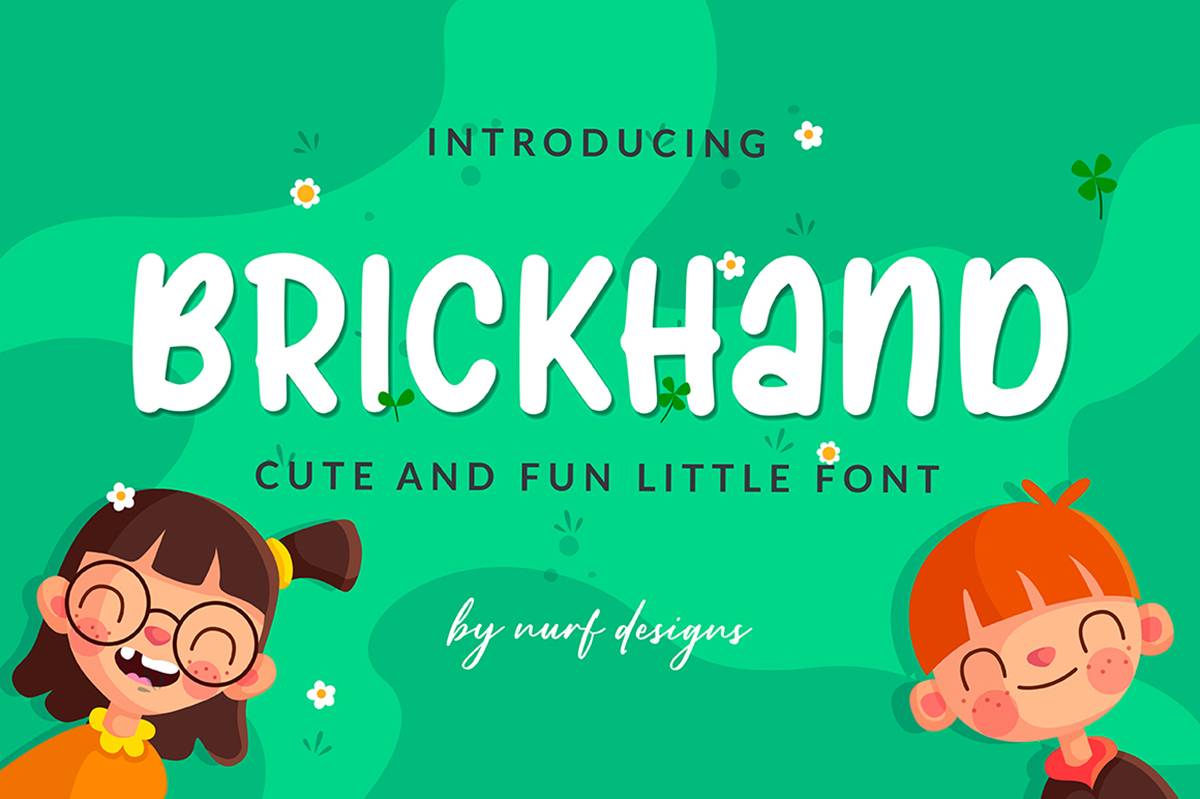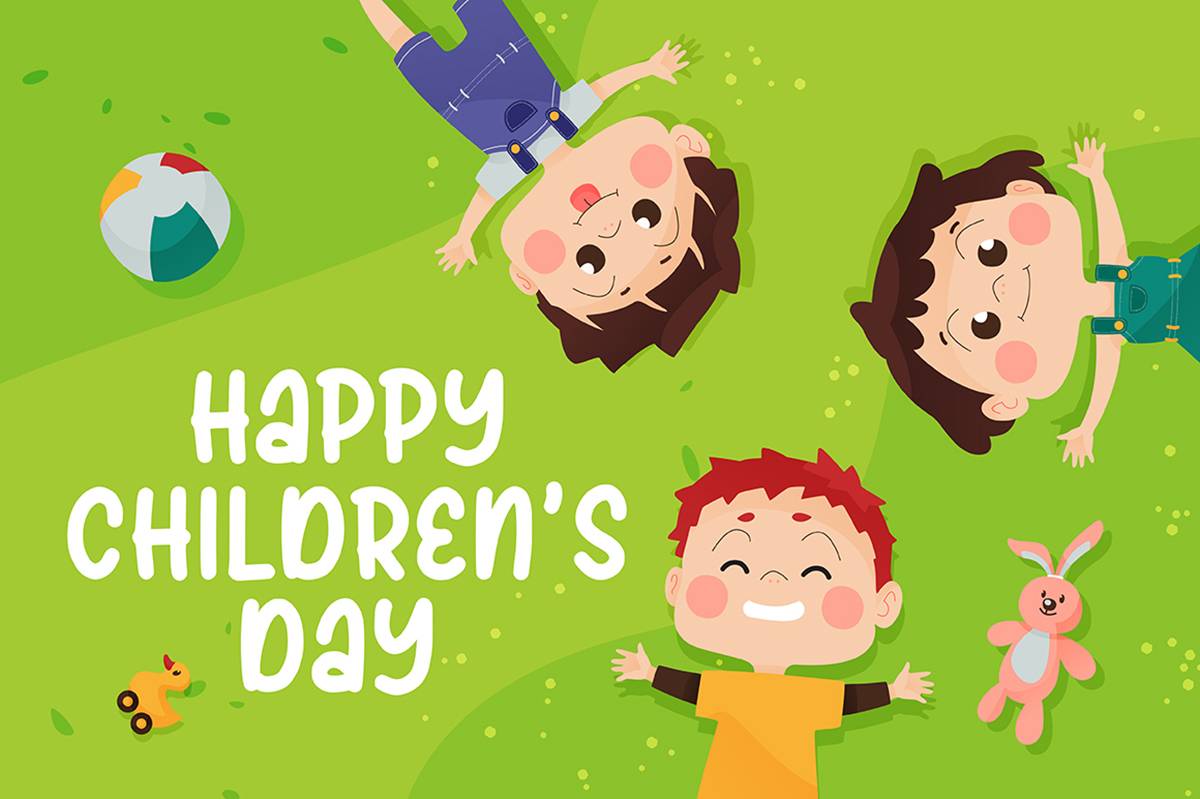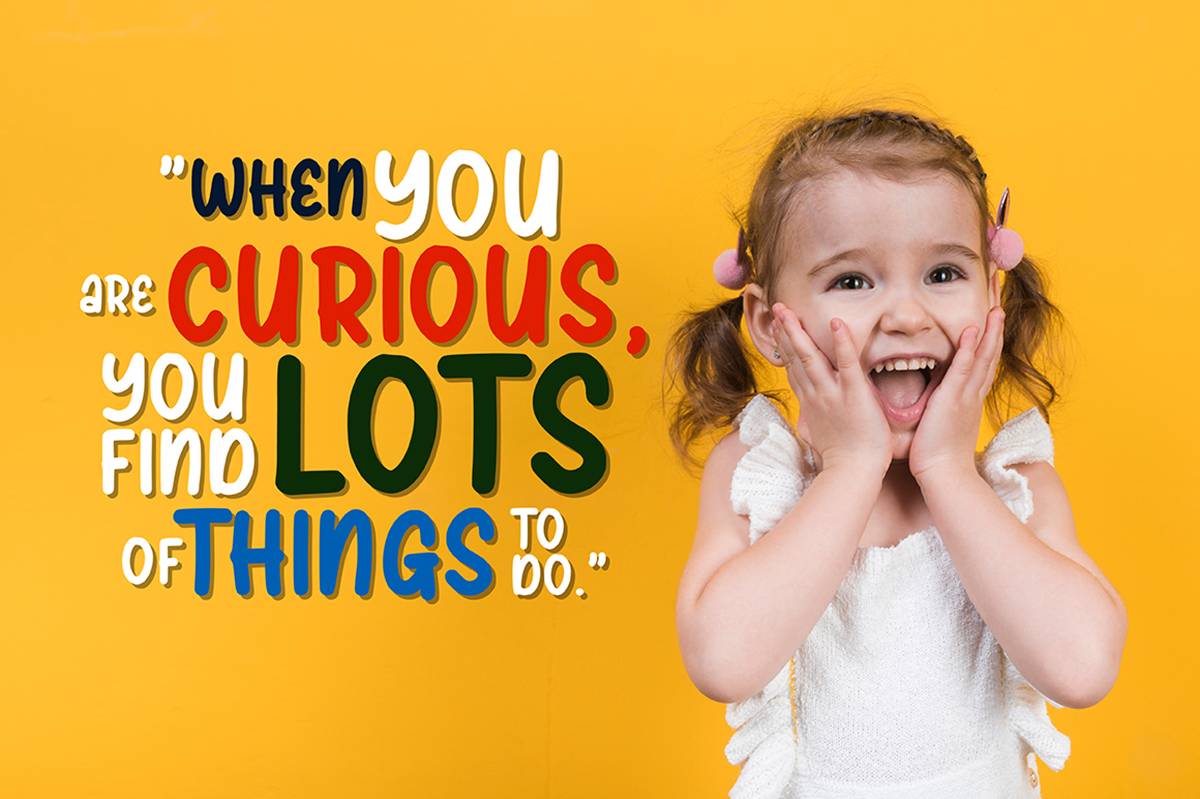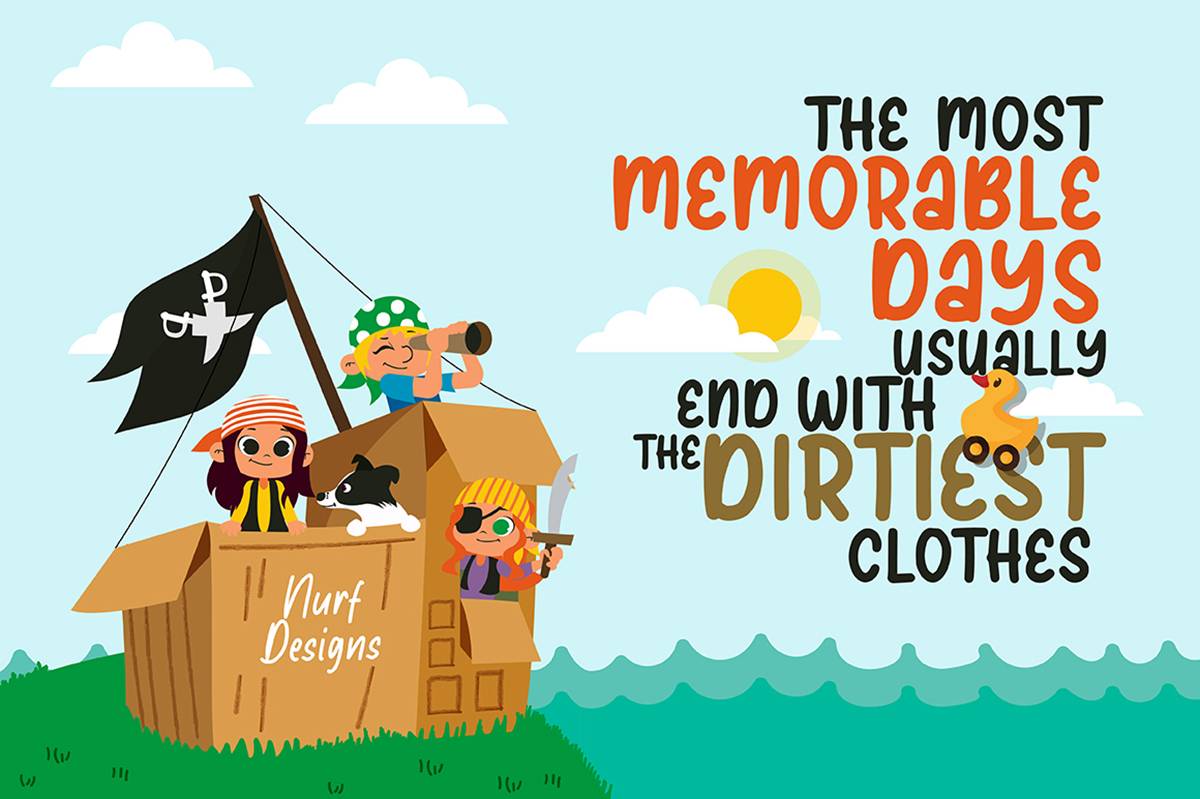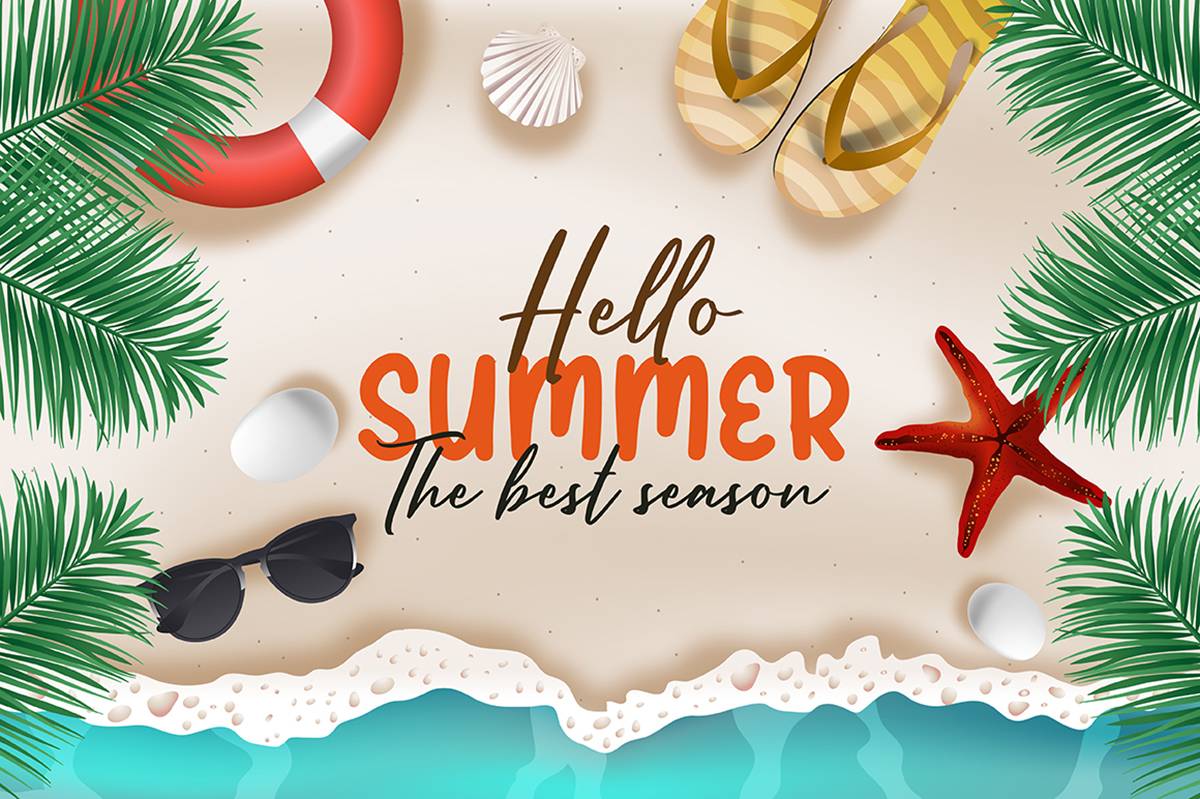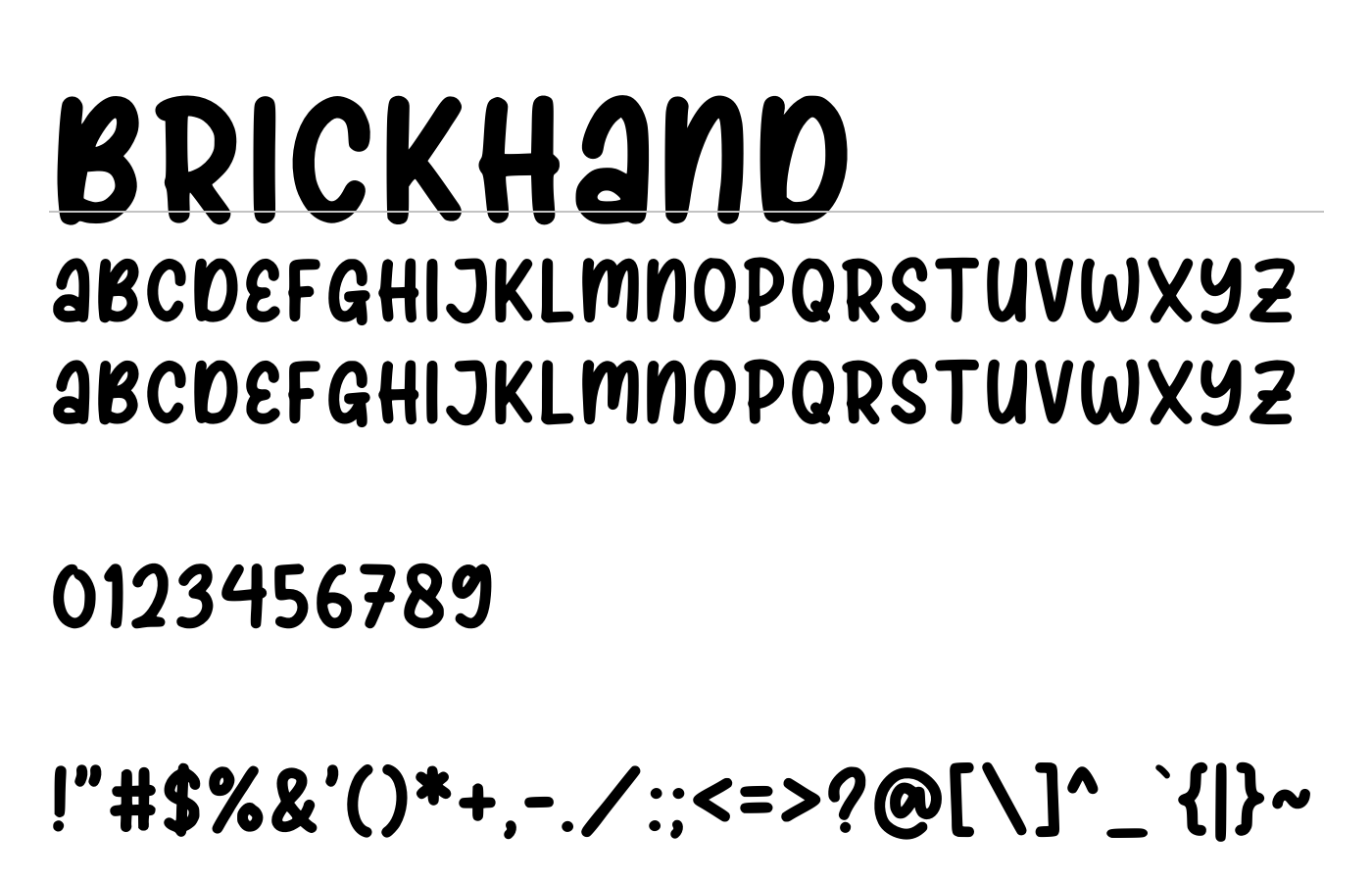
Brickhand is a bold, playful handwritten font with a lively and informal character. Its rounded, slightly irregular letterforms give it a friendly and approachable feel, making it ideal for creative projects, children’s materials, and casual branding. This font works well in headlines, logos, and packaging where a fun and personal touch is desired.
Brickhand Font
About Brickhand Font
| Font family | Brickhand Font |
| Designer | Fajar Abdul Fatah - Nurf Designs |